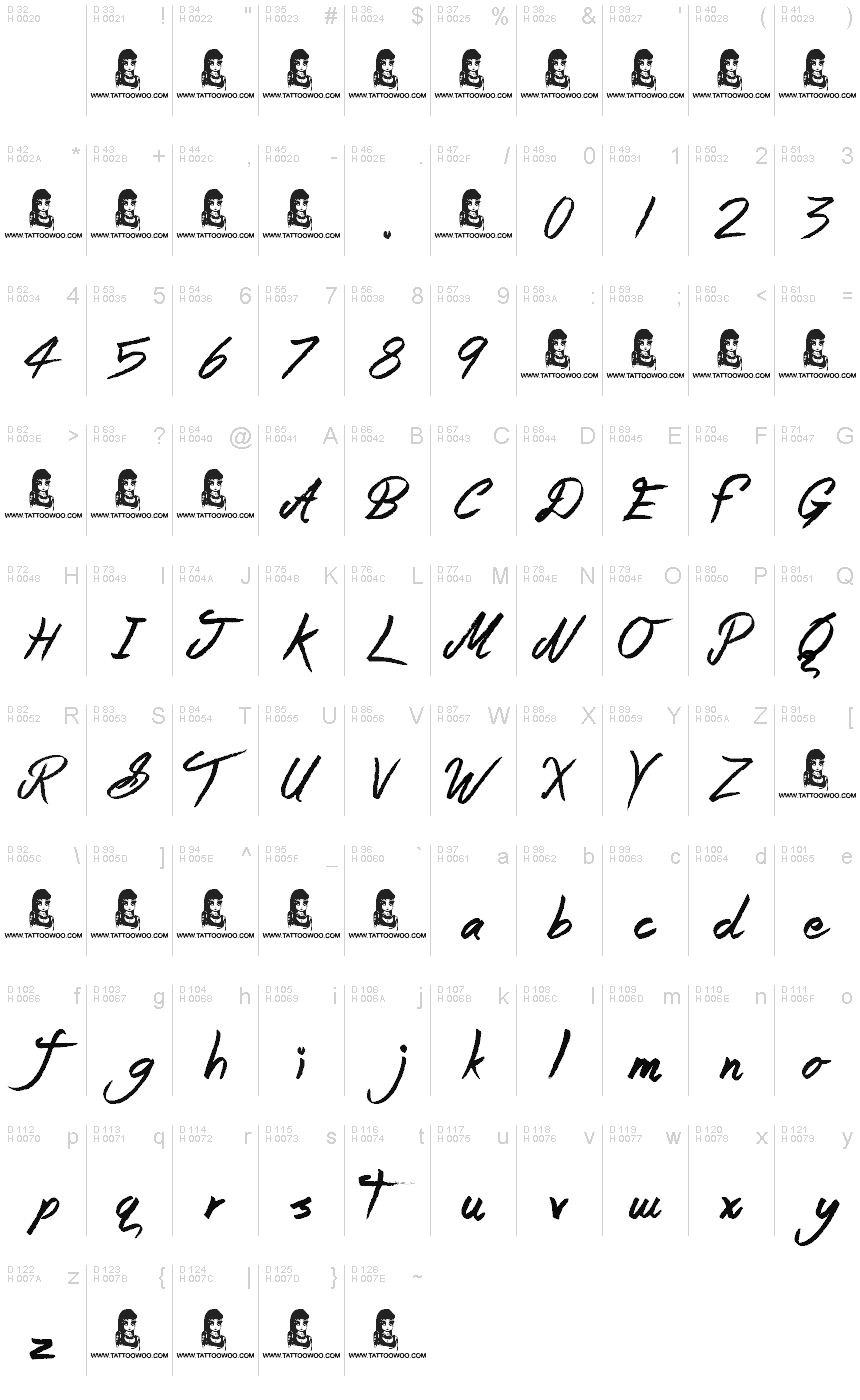
Messenger
Messenger is a captivating brush font designed by JSH creates. Its bold, expressive strokes evoke a sense of energy and dynamism, making it an ideal choice for a range of design applications. From eye-catching headlines and impactful logos to stylish packaging and editorial layouts, this font's versatile nature allows it to seamlessly blend into various visual narratives.
The organic, handwritten aesthetic of Messenger lends an air of authenticity and personal touch to any project. Its fluid, calligraphic forms convey a sense of craftsmanship and artistry, while the distinctive character shapes add a touch of individuality. This font's versatility makes it a compelling option for designers seeking to infuse their work with a sense of warmth and character.